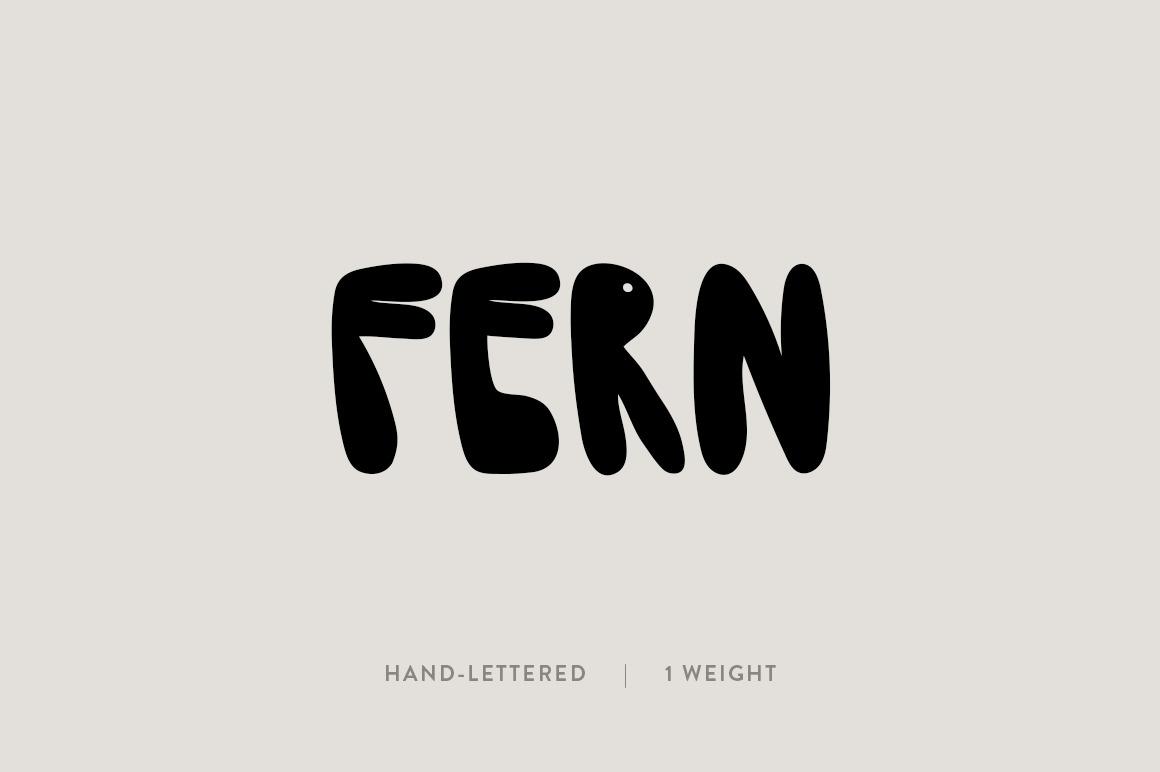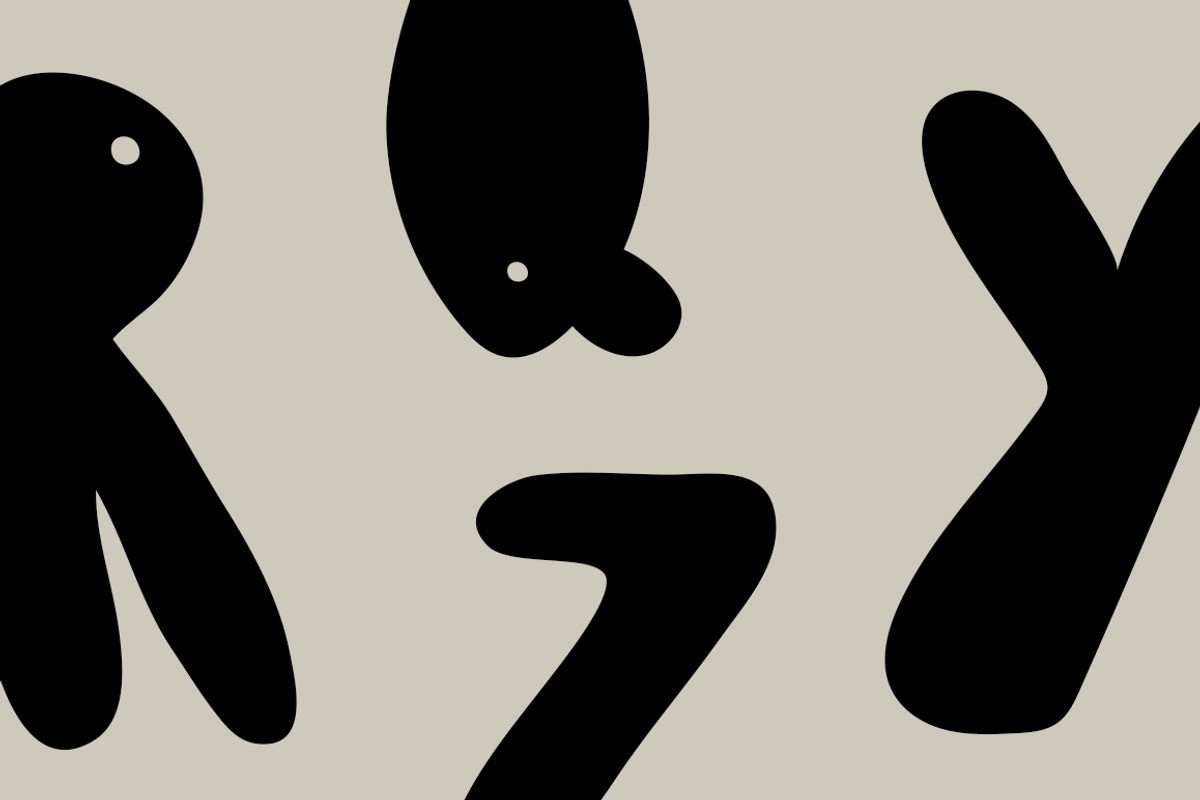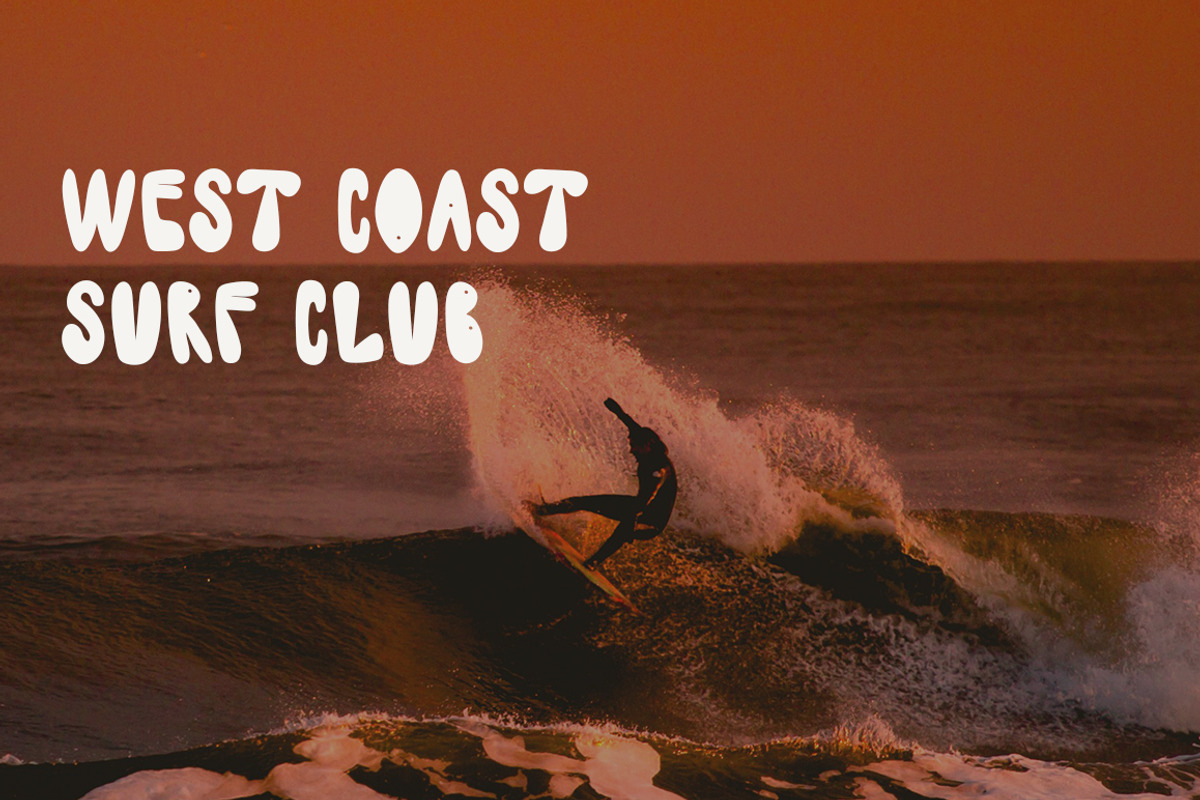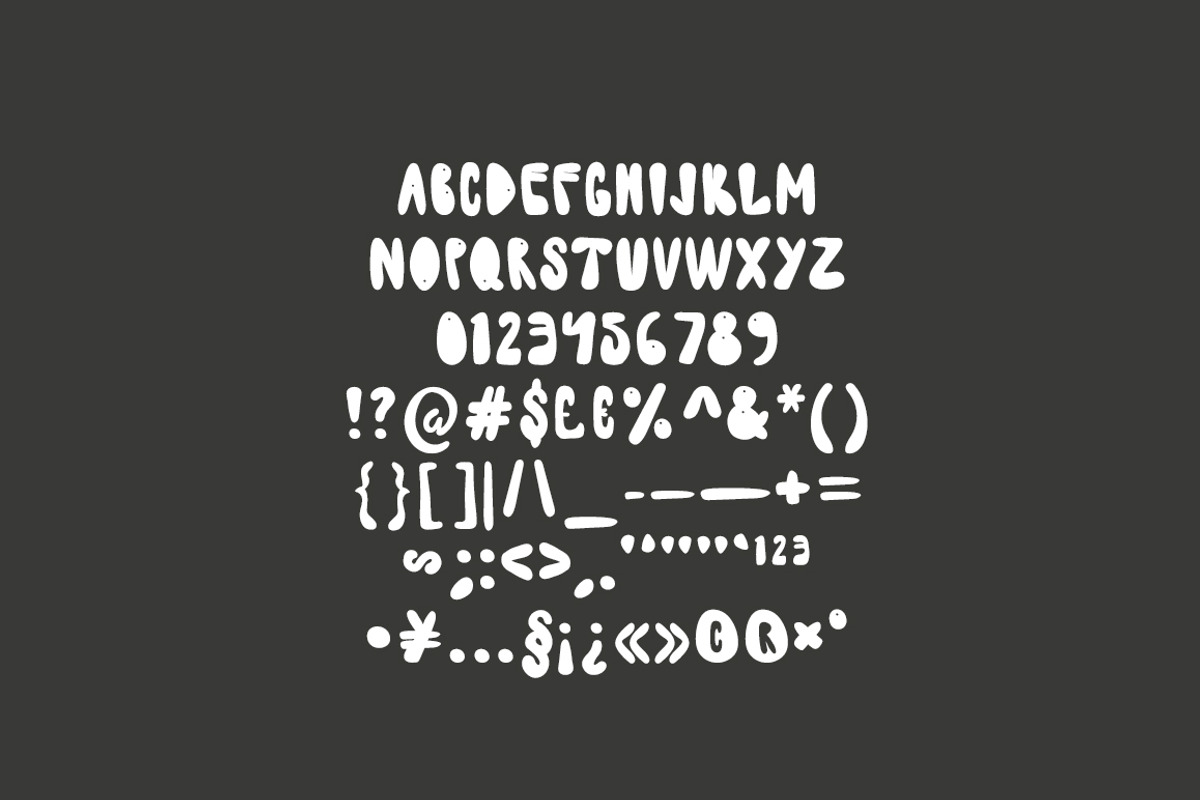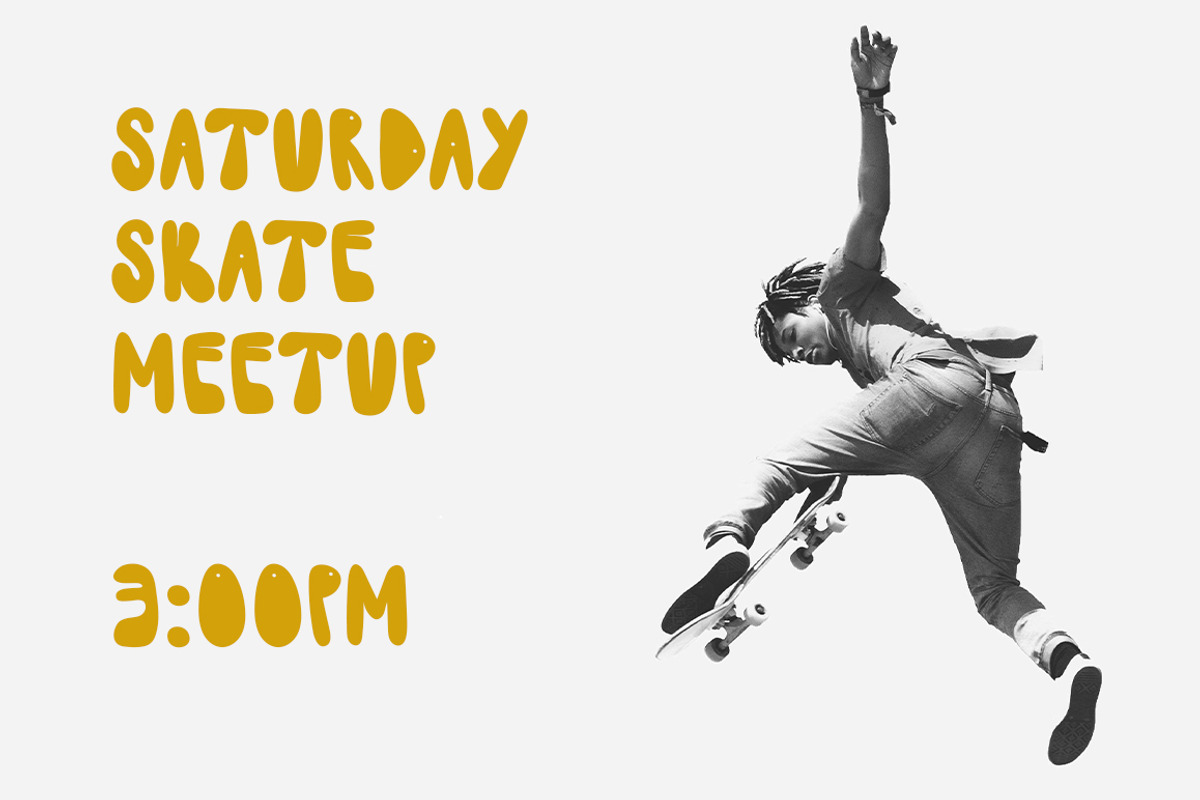
Fern: A Groovy Hand-lettered Font
The Fern Font
Fern embodies all that is groovy and free. The font creates a bold look using inspiration from 60s and 70s era shapes. With its simple feel and touch of organic, this font is meant to be versatile. It is perfect for all projects that need anything from a naturally bold look to a unique eye-catching style.